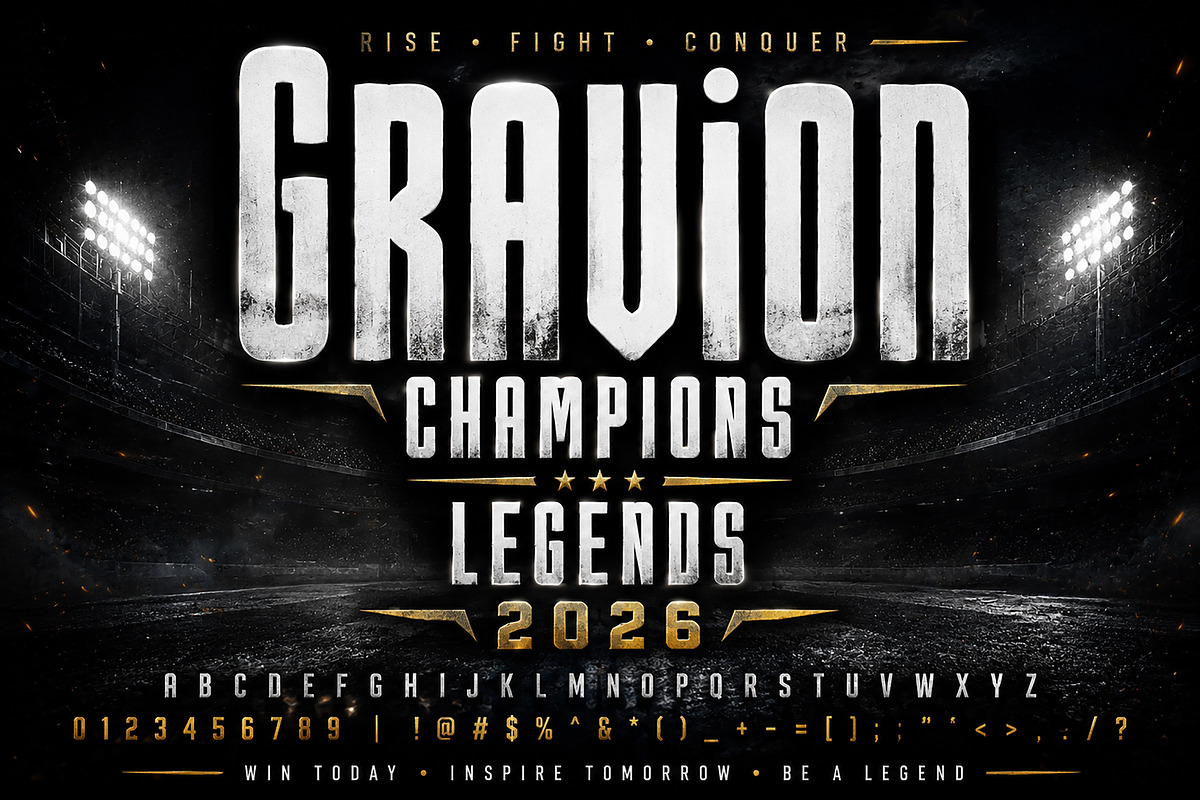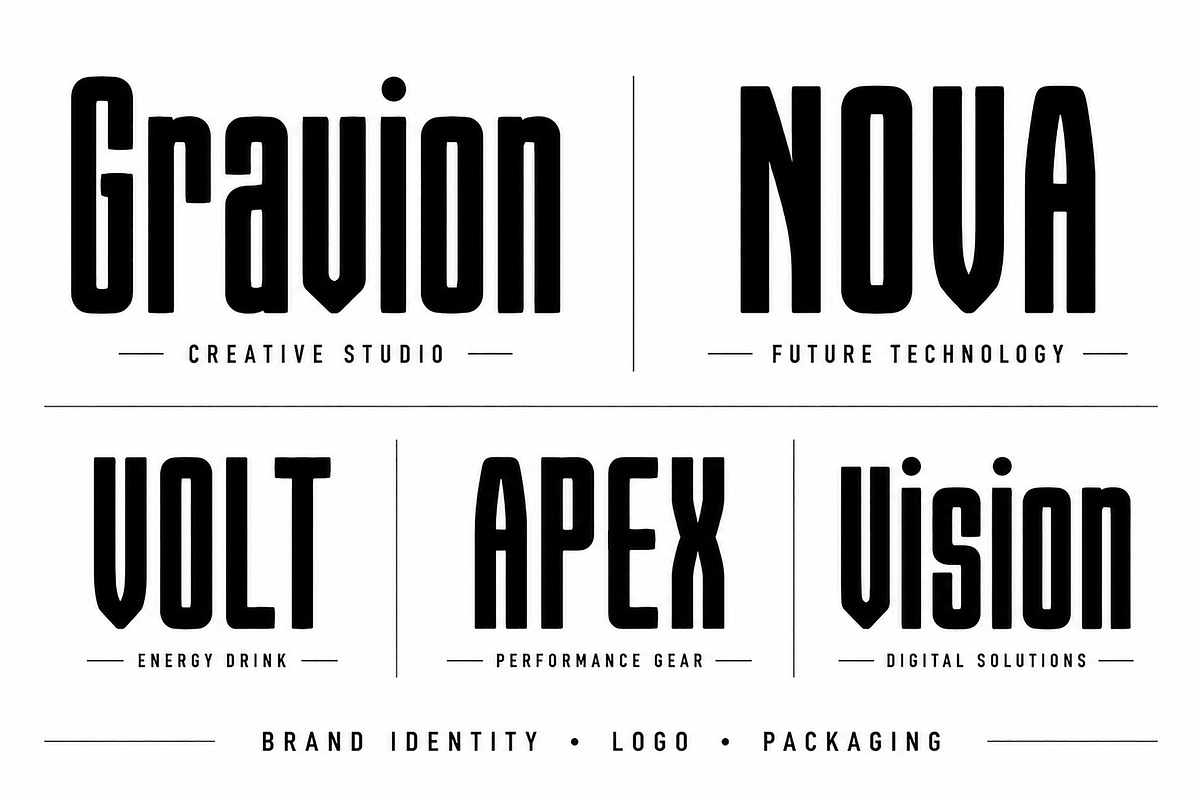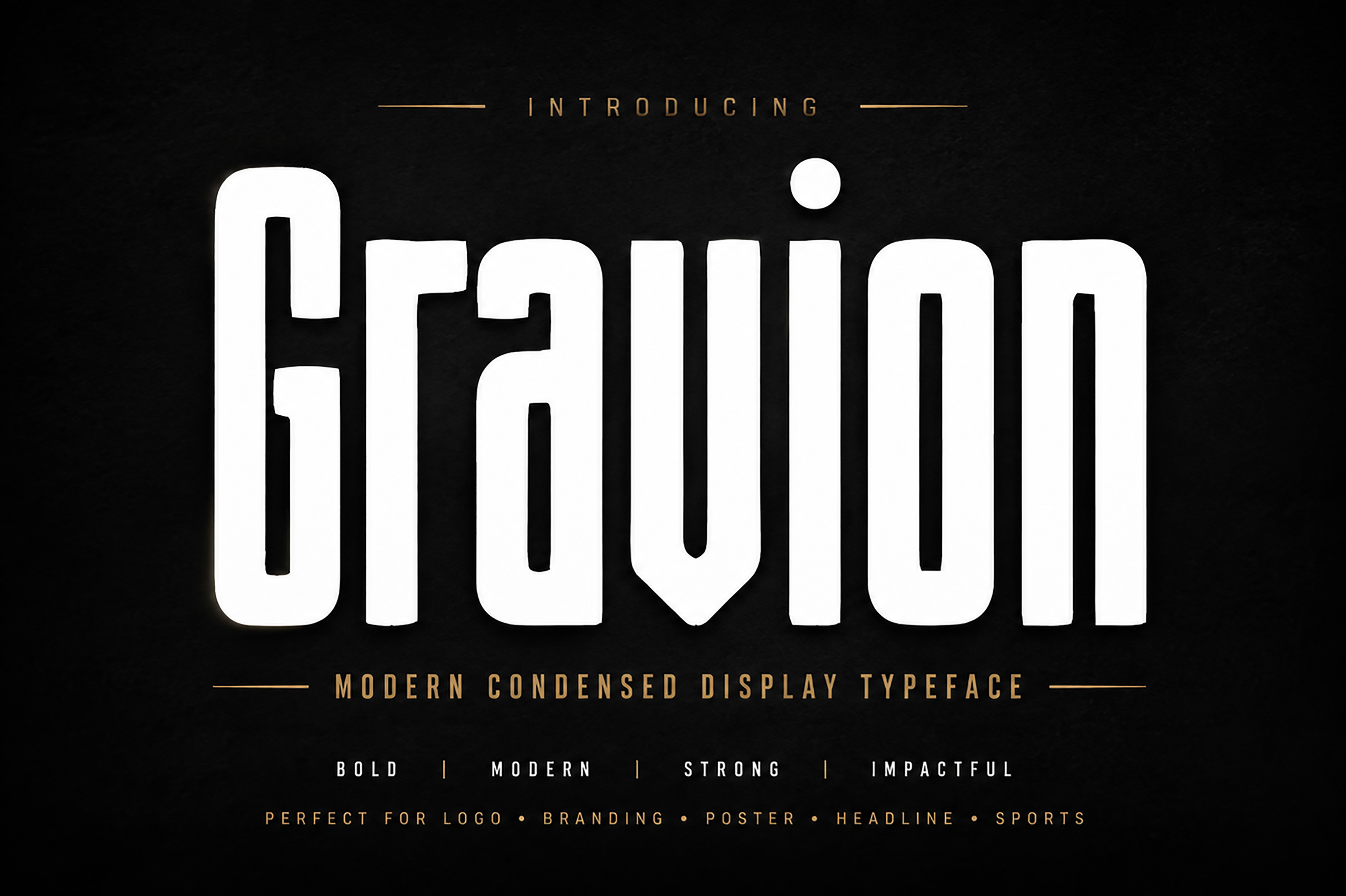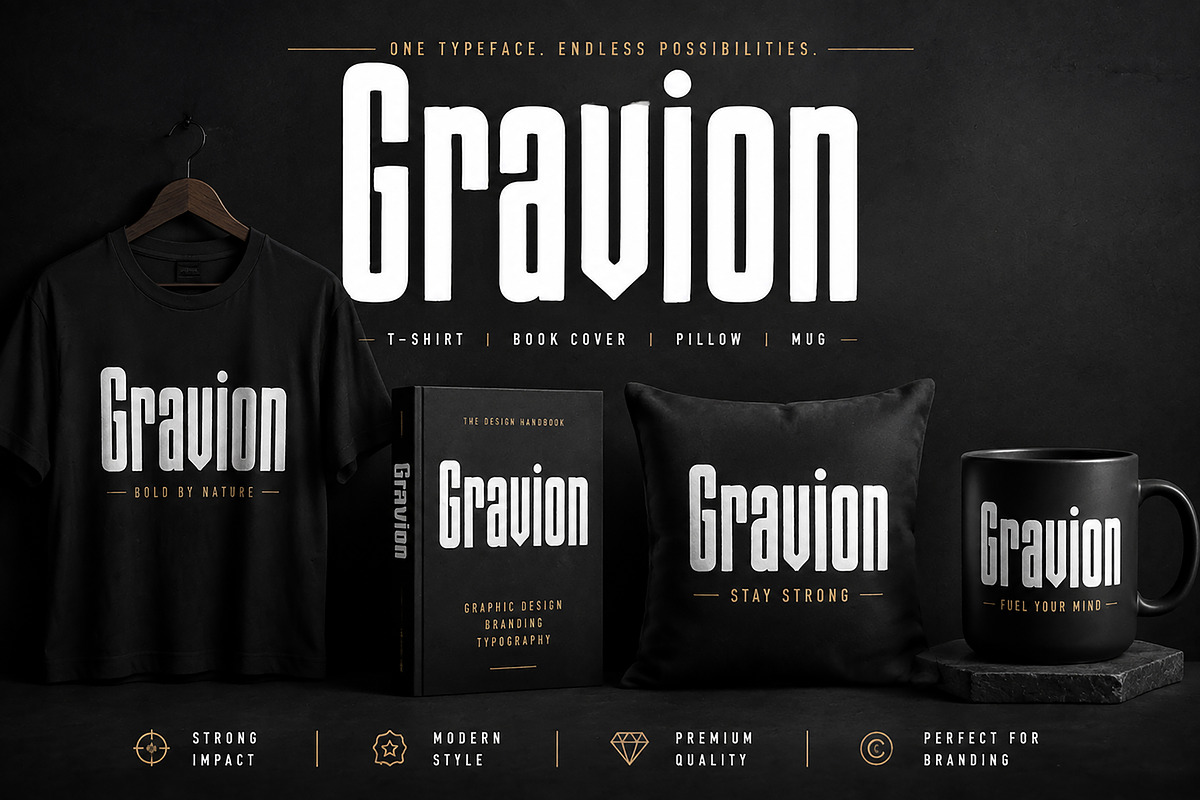
Gravion – Condensed Display Typeface
Gravion – Bold Condensed Display Typeface
Description:
Gravion is a powerful bold condensed display typeface designed for modern branding, logo design, posters, sports graphics, headlines, and creative visual projects. With its strong geometric structure, tall condensed shape, and impactful appearance, Gravion brings a bold and futuristic personality to any design.
Perfect for designers who need a strong headline font with a professional and premium look. This versatile typeface works beautifully for brand identity, packaging, apparel design, editorial layouts, gaming graphics, and promotional materials.
Bold condensed display style
Strong and impactful letterforms
Modern geometric design
Perfect for logos and branding
Ideal for posters and headlines
Great for sports & esports designs
Suitable for fashion and packaging projects
Clean and professional appearance
Recommended Uses:
Brand Identity
Sports Branding
Esports Graphics
Poster Design
Magazine Headlines
T-Shirt Design
Advertising Materials